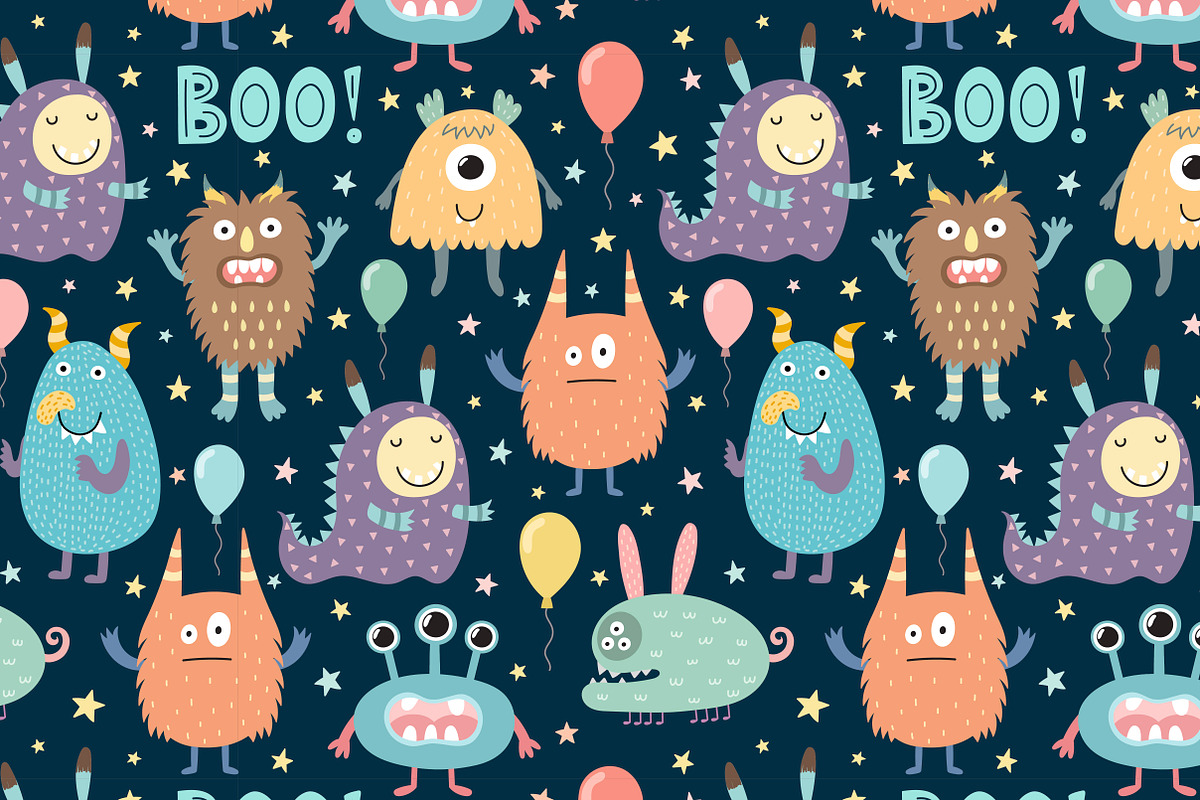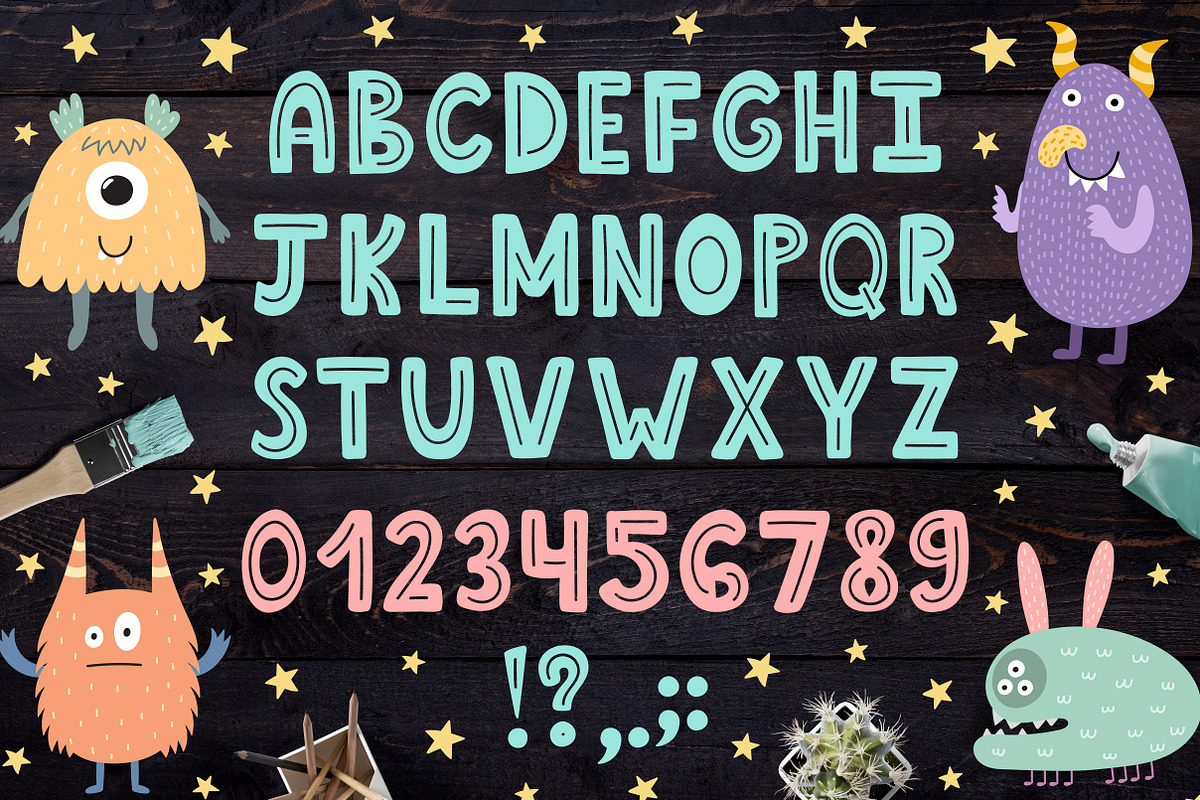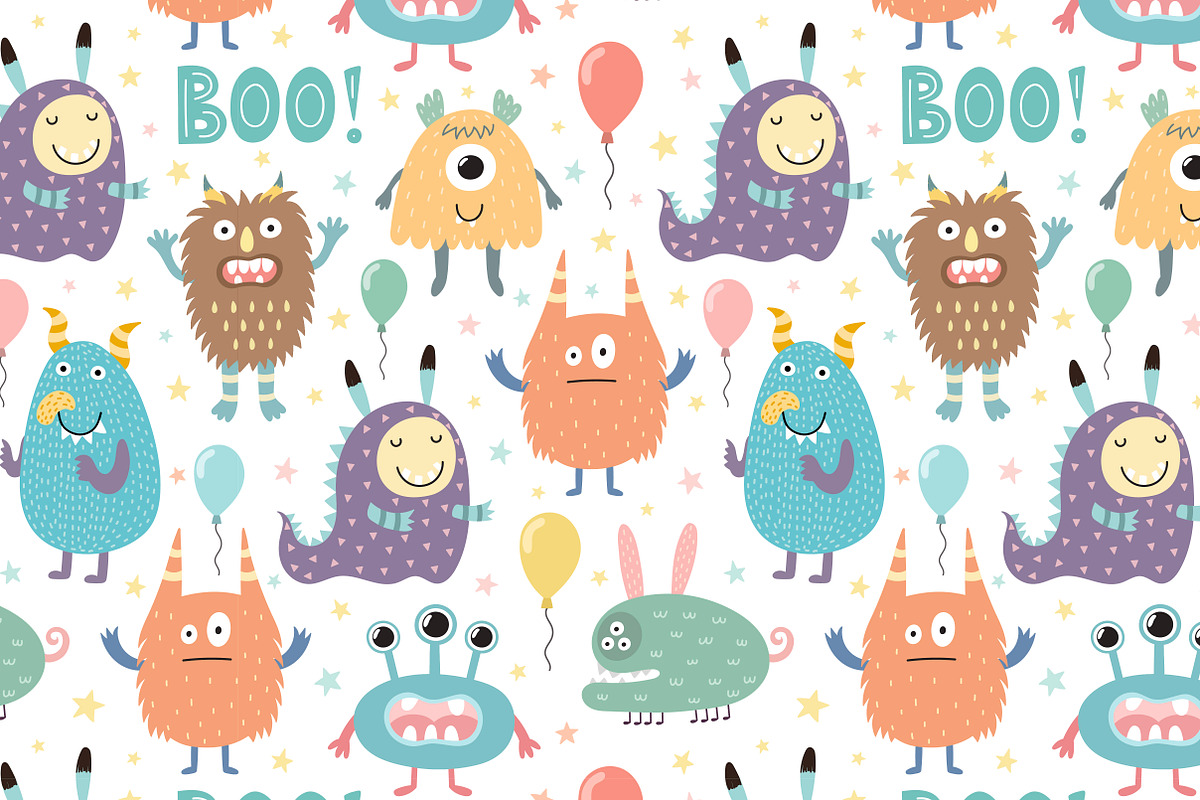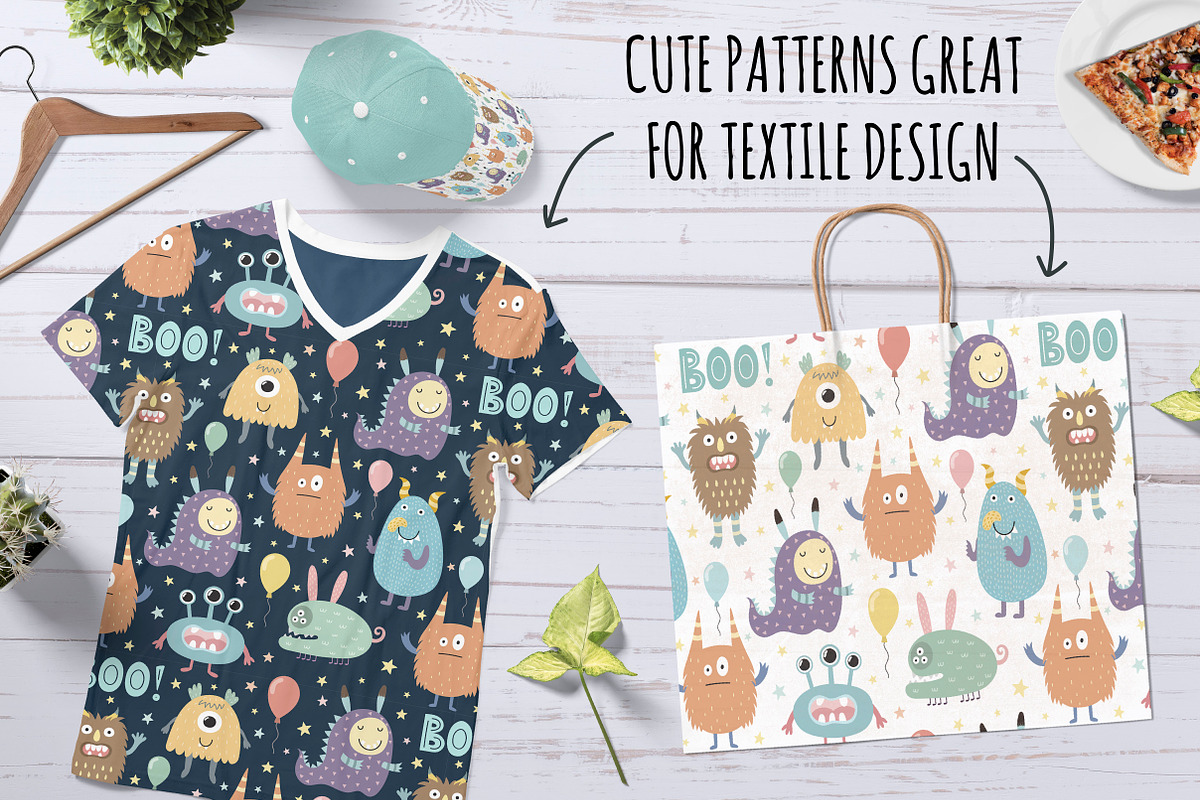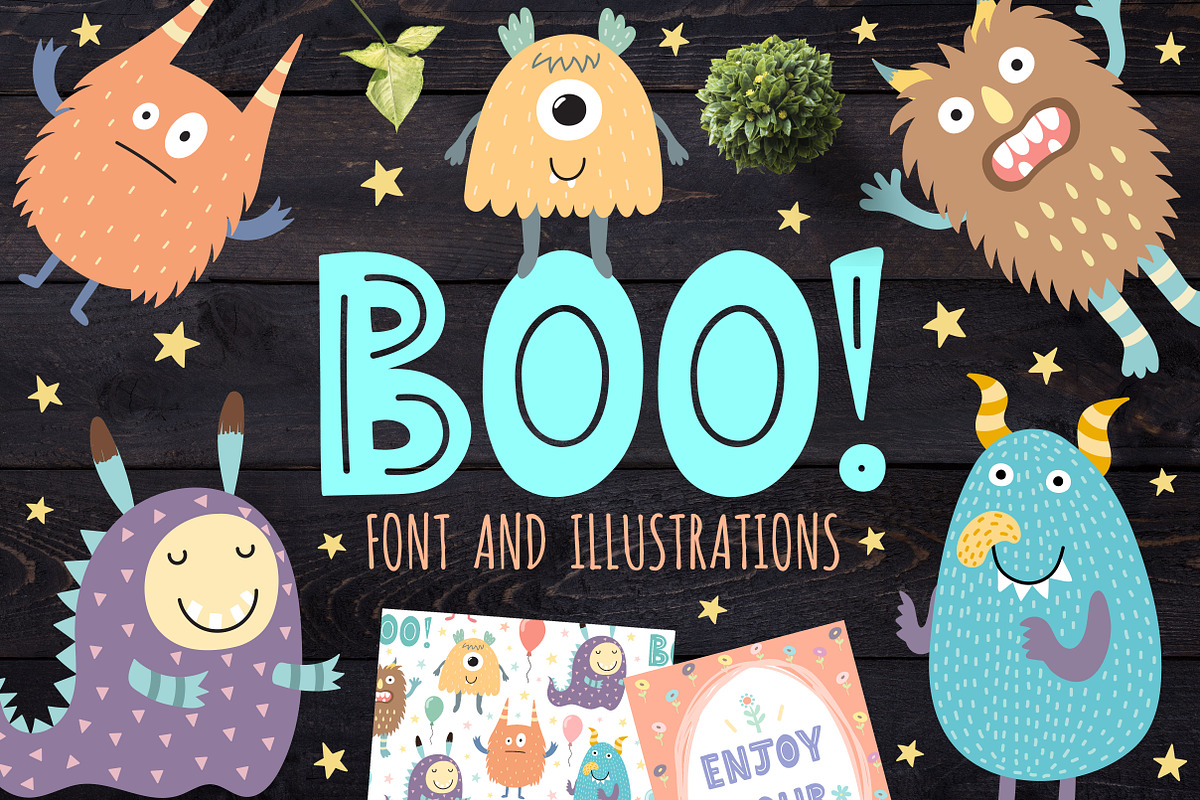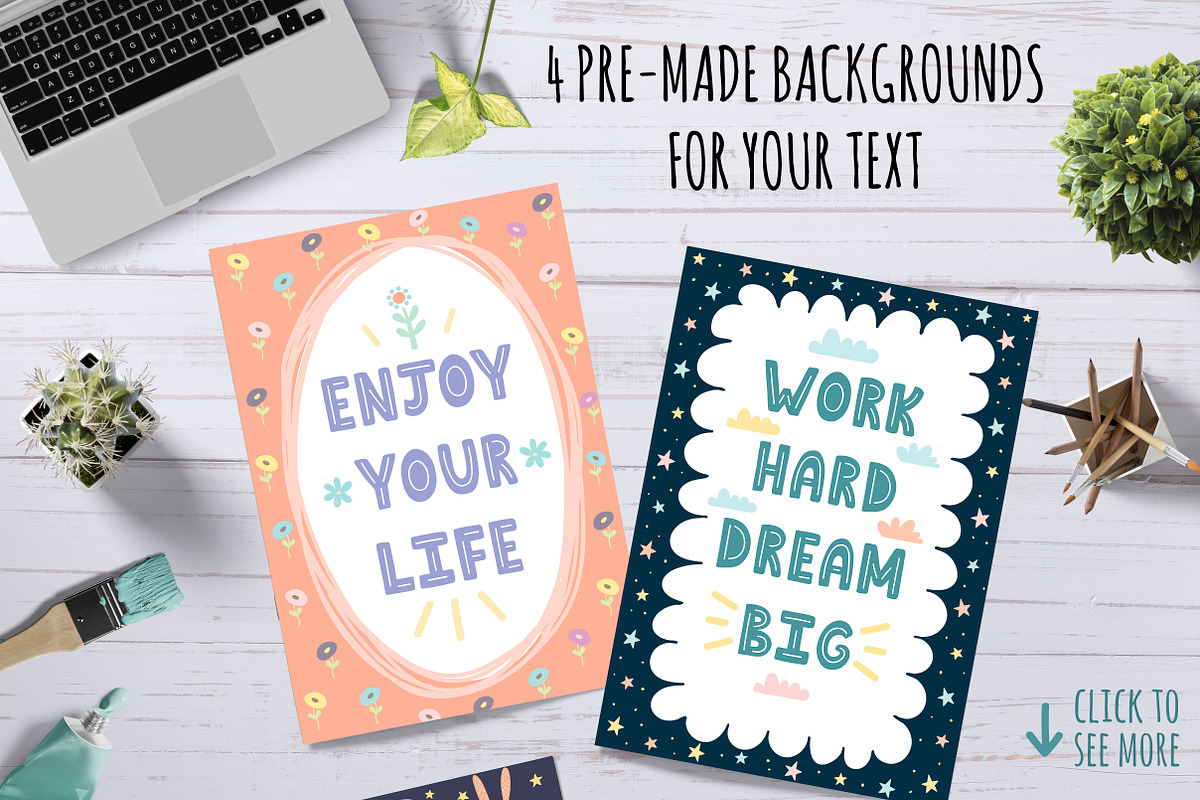
Boo! - Uppercase Font, illustrations
Hello! :) Let me introduce a new collection which includes funny uppercase font and cute monsters. This font is great for titles and quotes.
Besides, I prepared for you some pre-made backgrounds for your quotes. And don’t forget to use my funny monsters for prints, invitations and your other creative things :) And have fun with it!